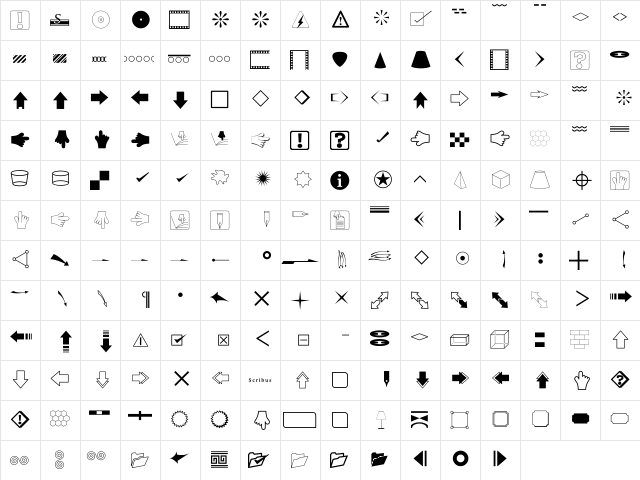
DTPDingbats Medium
| Designer | Barta KDzoly |
Design Context for DTPDingbats Typeface
DTPDingbats is a composed and adaptable typeface that performs quietly and consistently across a wide range of design contexts.